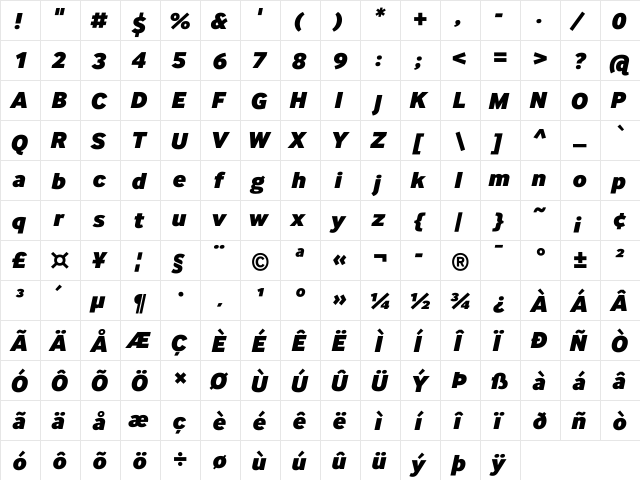
InterFace DaMa Th Bold Italic
Design Context for InterFace DaMa Th Typeface
InterFace DaMa Th is a composed and adaptable typeface that performs quietly and consistently across a wide range of design contexts. The slanted form adds forward momentum and visual energy. The heavy weight commands attention and anchors typographic hierarchies.
Pro Tip: Use InterFace DaMa Th for emphasis, pull quotes, and subheadings where its slanted energy can add rhythm to the layout.